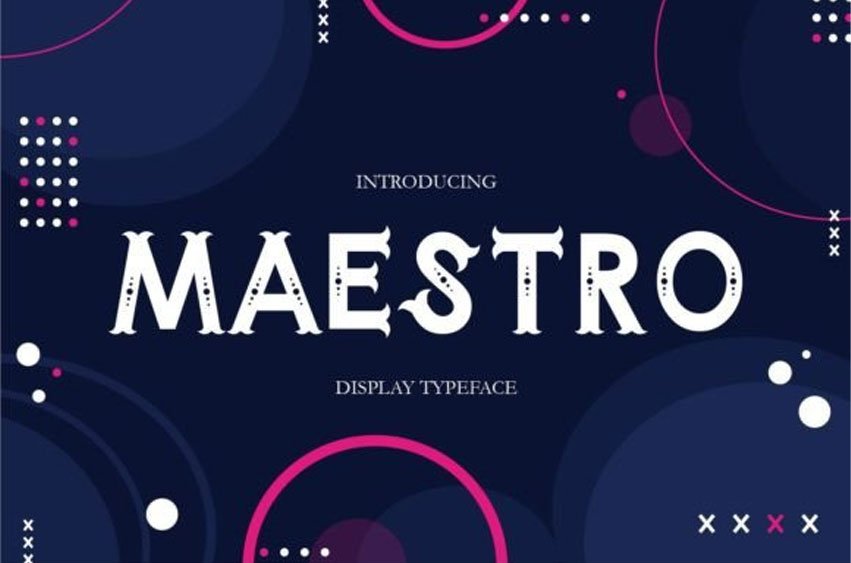
Maestro Display Font is a vintage typeface, inspired by old-school design. It is a more decorative typeface by adding bold bifurcated serif on the letterforms.
This font is a perfect choice for vintage or old-school themes. You can use this font for many purposes such as vintage logos, mugs, embroidery, prints, display, short text, packaging, cards, emblem, signage, and many more!